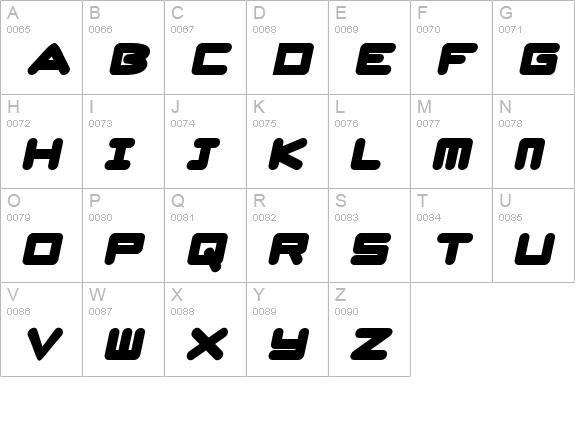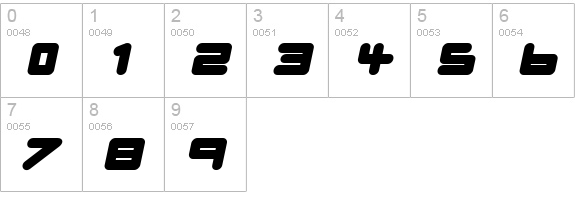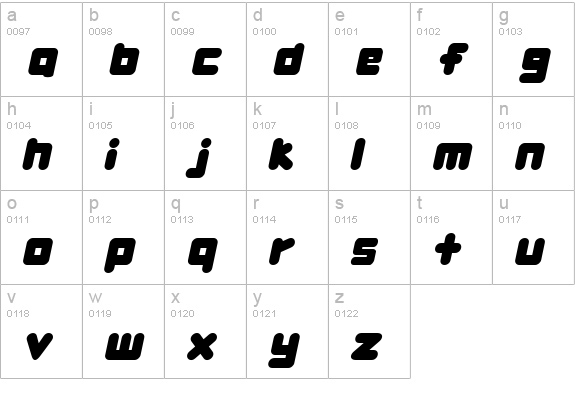
UrsaBrushSans-Oblique Font Details
UrsaBrushSans-Oblique is a distinctive, italic variant in the UrsaBrushSans typeface family \xE2\x80\x94 well suited to design and typography projects.
UrsaBrushSans-Oblique font is a captivating and versatile typeface that effortlessly combines elegance with a touch of artistic flair. Its unique design features bold, slanted letterforms that exude confidence and creativity. This font is perfect for adding a modern and edgy touch to any design project. With its smooth curves and dynamic strokes, UrsaBrushSans-Oblique font adds a sense of movement and energy to your text. Whether you're designing a logo, creating eye-catching posters, or crafting stylish social media graphics, this font will make your message stand out from the crowd. One of the most remarkable aspects of UrsaBrushSans-Oblique font is that it is available for free! You can easily download this font from FontsMarket.com, a trusted source for high-quality and diverse typography. This means that you can enhance your designs without breaking the bank. UrsaBrushSans-Oblique font is suitable for a wide range of design applications, from branding and packaging to web design and advertising. Its versatility allows it to adapt to various styles and themes, making it an ideal choice for both professional designers and casual enthusiasts. With UrsaBrushSans-Oblique font, you can effortlessly elevate your design projects and add a touch of modern sophistication. Its bold and expressive nature will captivate your audience and leave a lasting impression. So don't miss out on this fantastic opportunity to download this font for free at FontsMarket.com and unlock a world of creative possibilities.